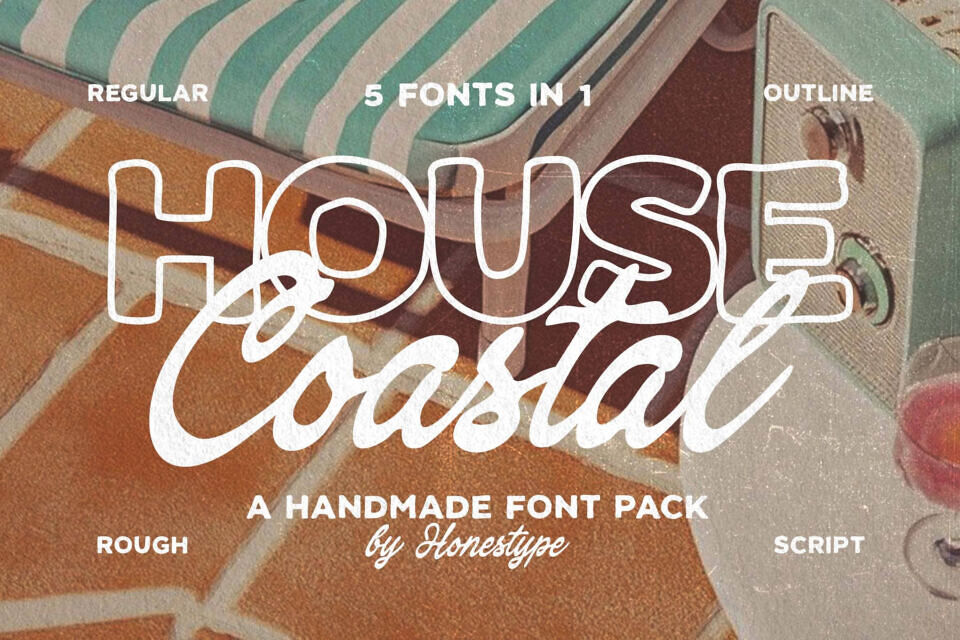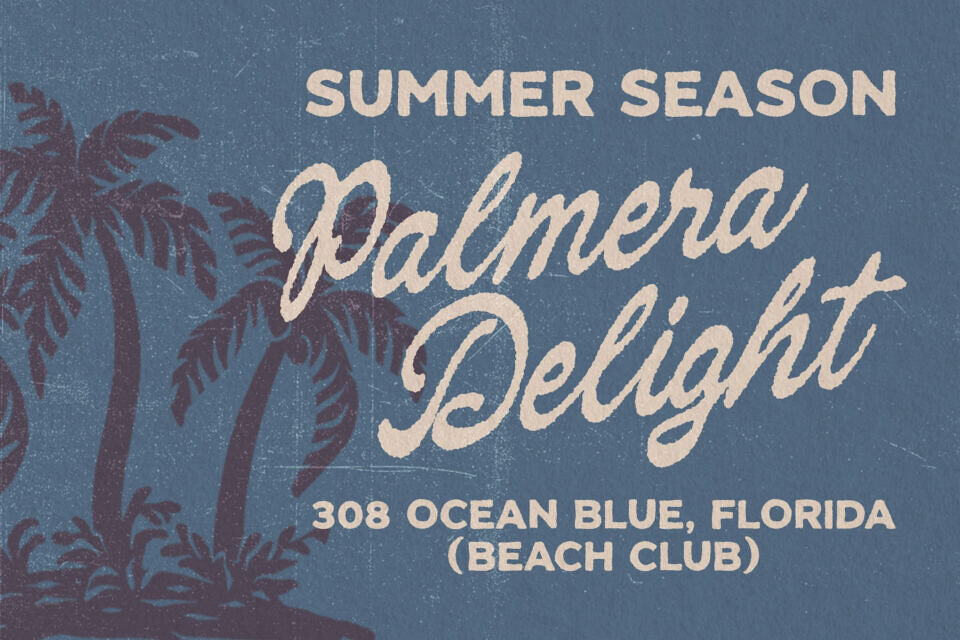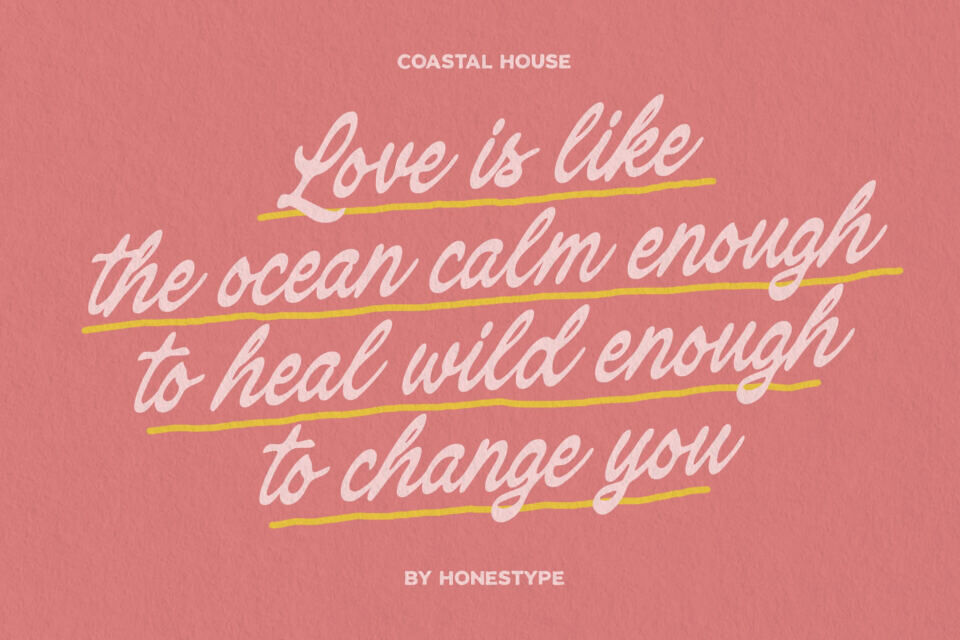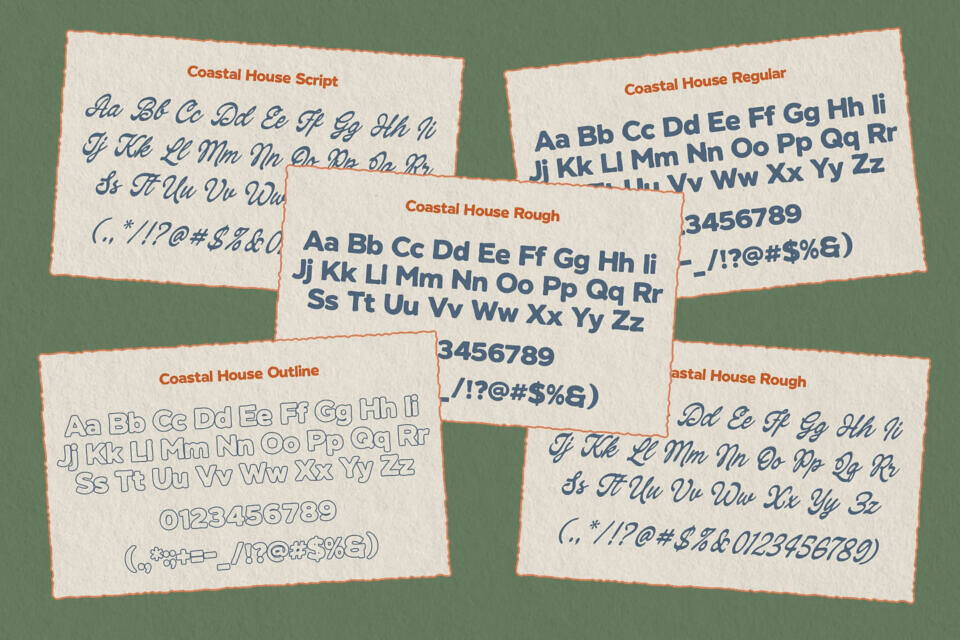
Coastal House Font
Coastal House is a handmade font pack inspired by sunny beach days, vintage surf culture, and relaxed coastal living. It includes 5 font styles in 1 package—Regular, Outline, Rough, Script, and Shadow—making it easy to create eye-catching typography with a playful retro feel.
Perfect for logos, branding, packaging, posters, apparel, café menus, beach-themed designs, social media, invitations, and merchandise. Mix and match the styles to create unique layered effects or use each style on its own for a clean and stylish look.